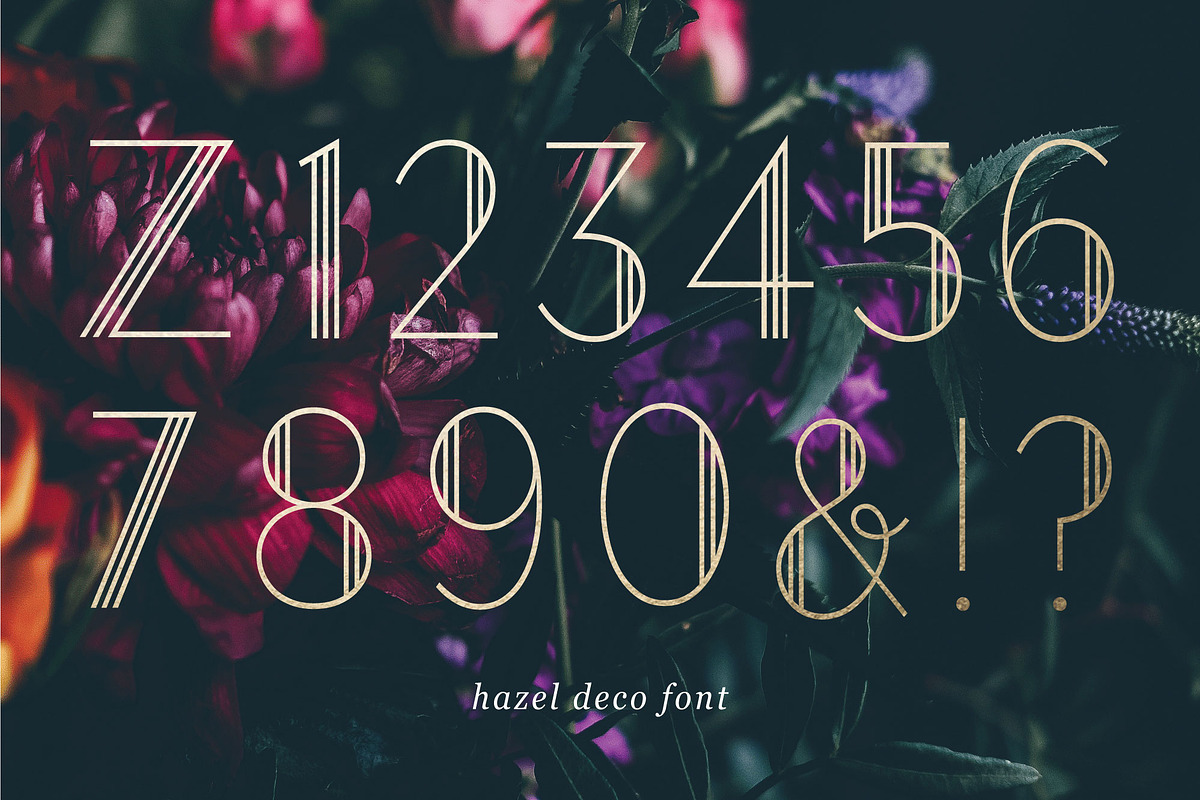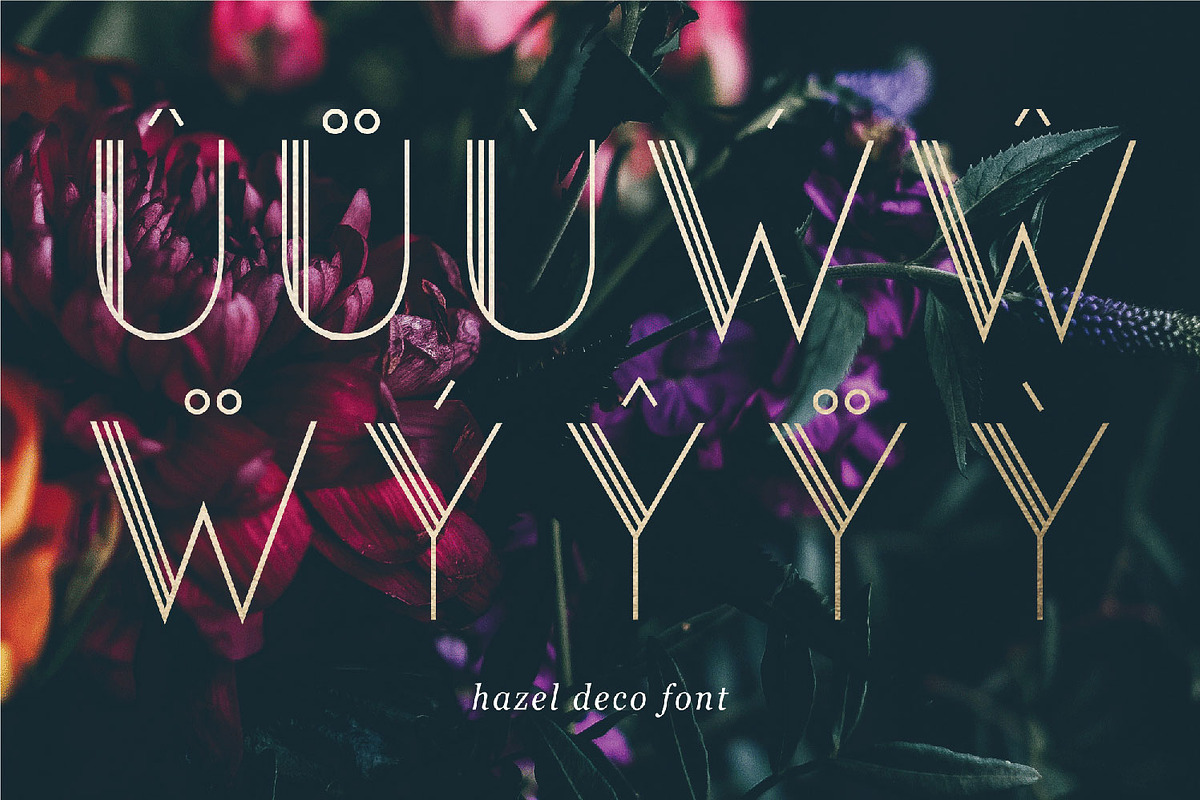
Hazel Deco Font
Meet Hazel Deco, an elegant Art Deco font in all caps.
Hazel Deco is suitable for wedding invitations, branding, stationery, blog design, custom art, custom stamps, custom embossers, or any design purpose.